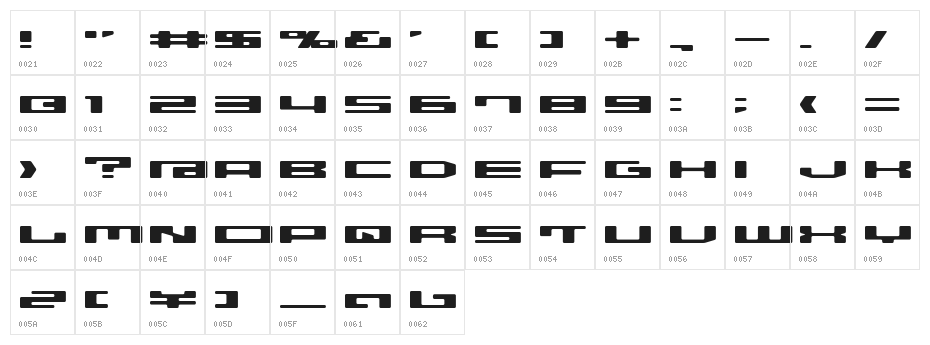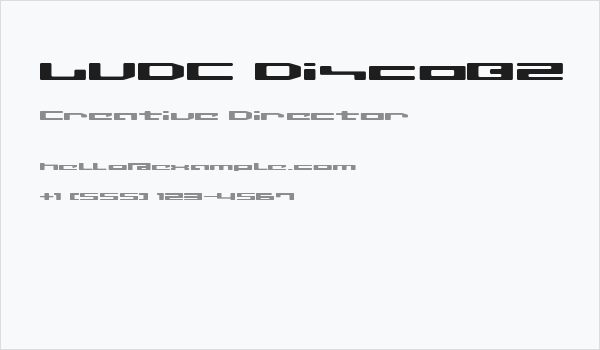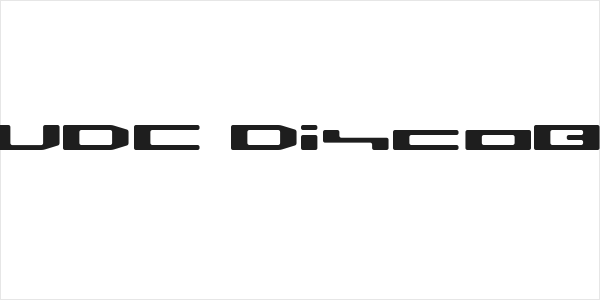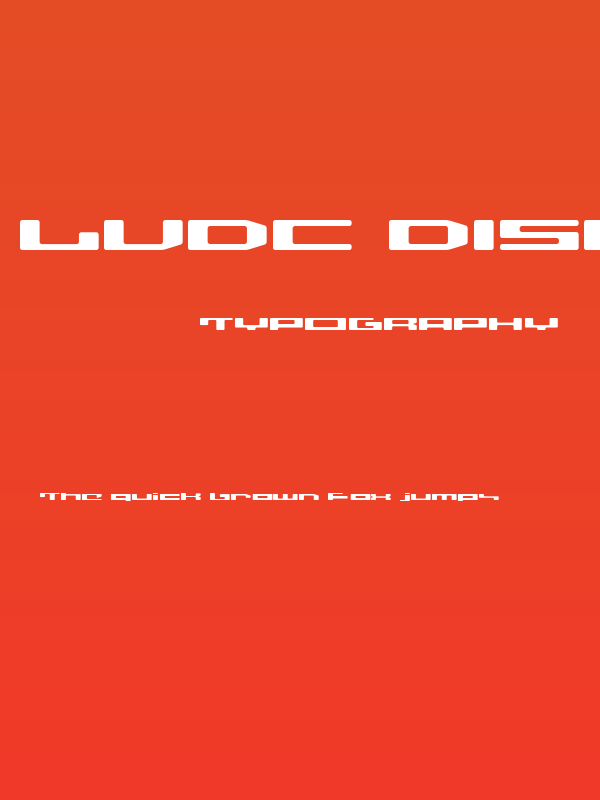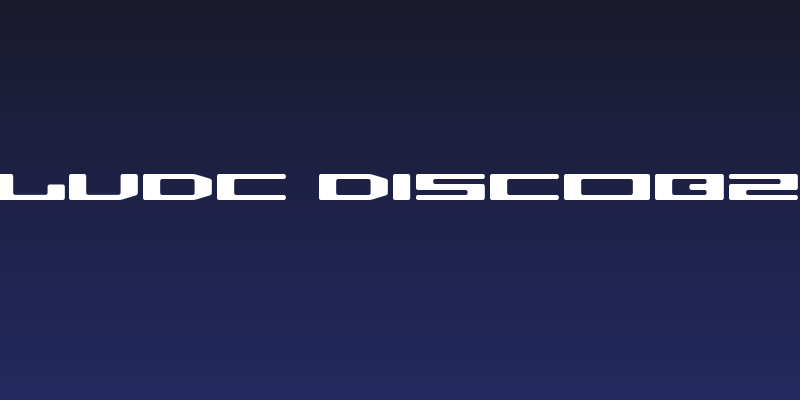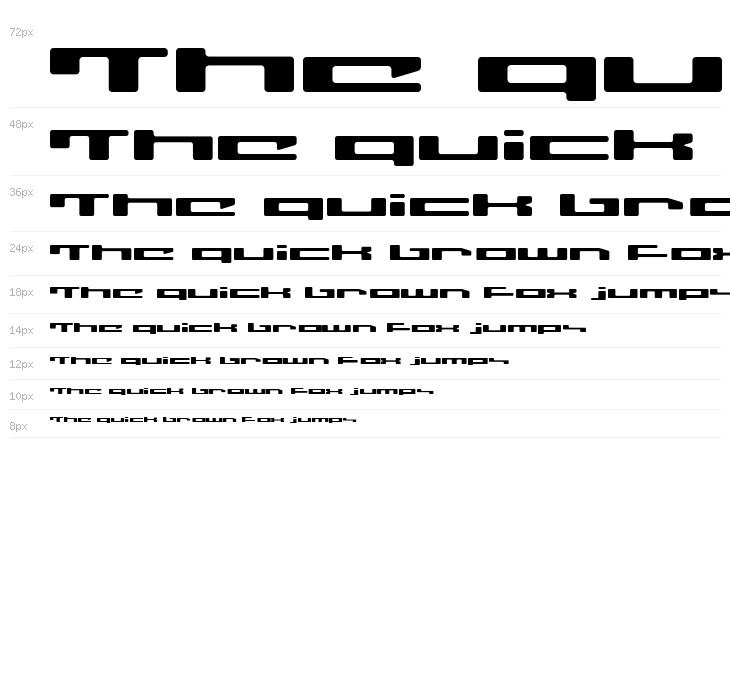
LVDC Disco02 Font
LVDC Disco02 Description
This font features a bold, futuristic design with geometric shapes and sharp angles. The characters are uniformly wide, creating a sense of stability and modernity. The uppercase and lowercase letters maintain a consistent style, with the lowercase mirroring the uppercase in structure but with a slightly reduced height. Numbers and special characters follow the same design principles, ensuring a cohesive look across all text. The font's distinct style makes it ideal for projects that require a modern, tech-inspired aesthetic.
Proposed ProjectsIdeal for technology branding, sci-fi movie posters, video game titles, and modern digital interfaces.